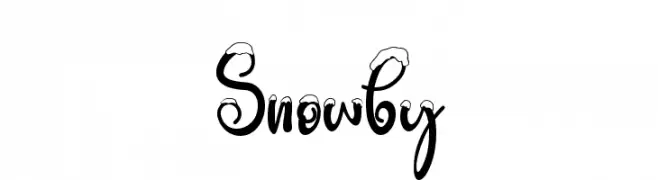
A whimsical script font with snow-capped letters, perfect for winter themes.
A bold, playful font with snowy caps on each character, perfect for winter themes.
A dynamic and expressive handwritten font with flowing, interconnected strokes.
A playful, spaghetti-inspired decorative font with a hand-drawn look.
A horror-themed font with dripping, jagged letters for a spooky effect.
A playful, whimsical script font with a hand-drawn appearance.
A lively and expressive handwritten font with a modern flair.